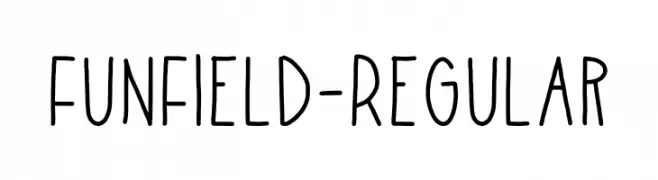
A playful, hand-drawn font with elongated, narrow characters.
A playful, handwritten font with tall, narrow letters and whimsical curves.
A playful, handwritten font with tall, narrow characters and a casual vibe.